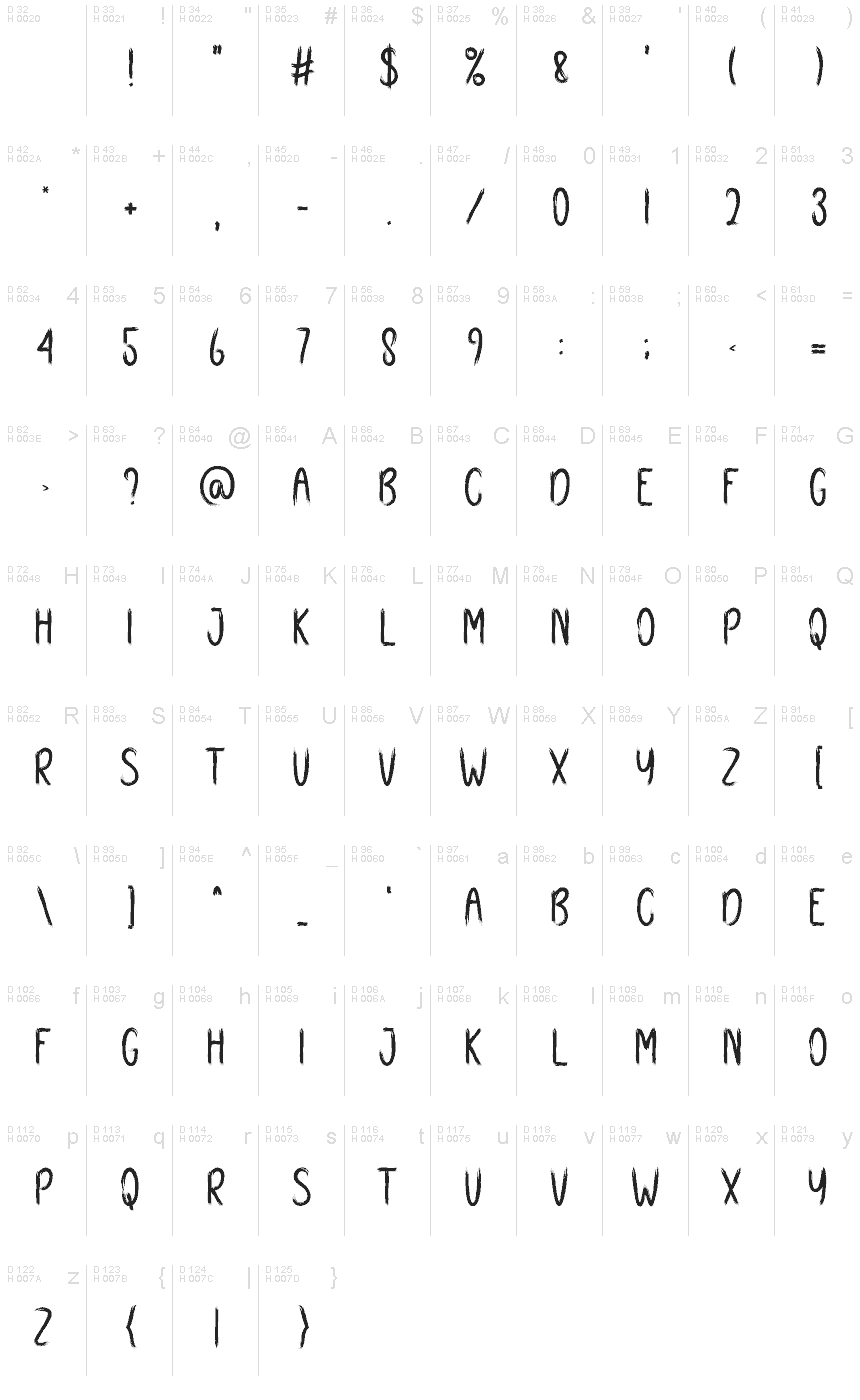
Scaryring
Scaryring font is a condensed scary display font designed by Andi Moz. Its presence is grungy and unsettling with each character embodying sharp and ragged edges for an extra malicious effect. Bold, jagged, and expressive, this is the type of free display font that you use when you need to disturb your audience and cause anxiety.
Use Scaryring in posters for psycho movies or in novels with horror fiction content. This type of textured typography fits both digital and printed projects like social media posts, videos, magazines front pages, t-shirts & hoodies design.